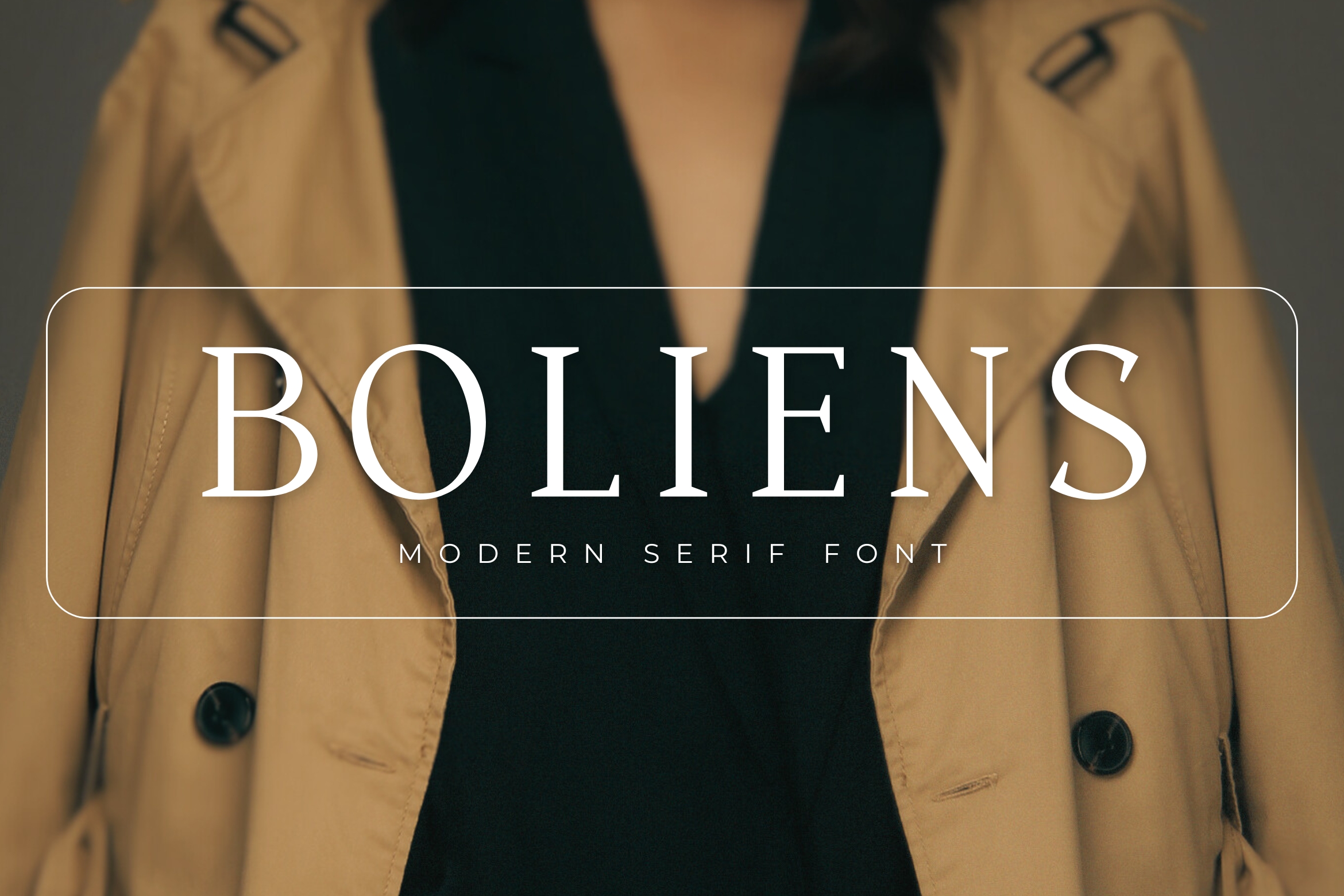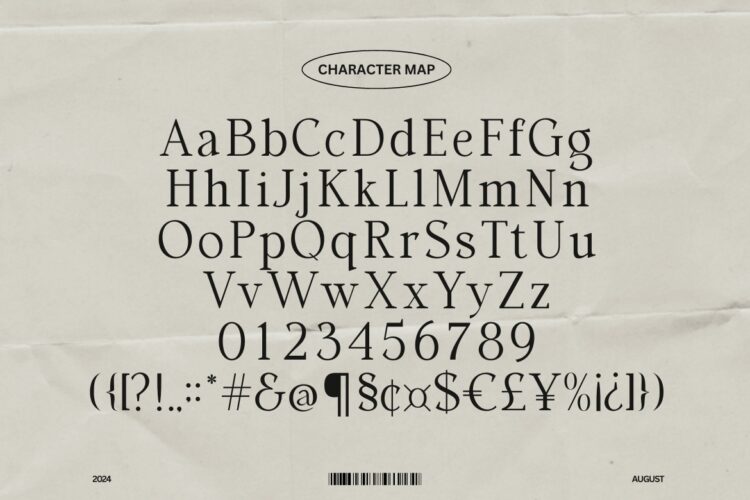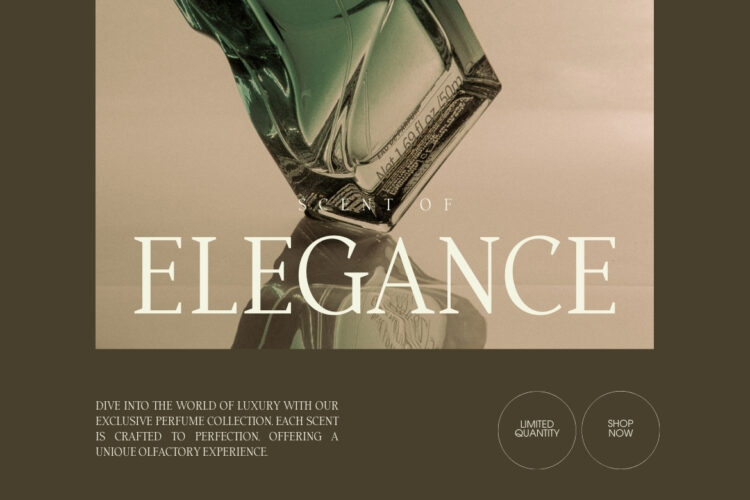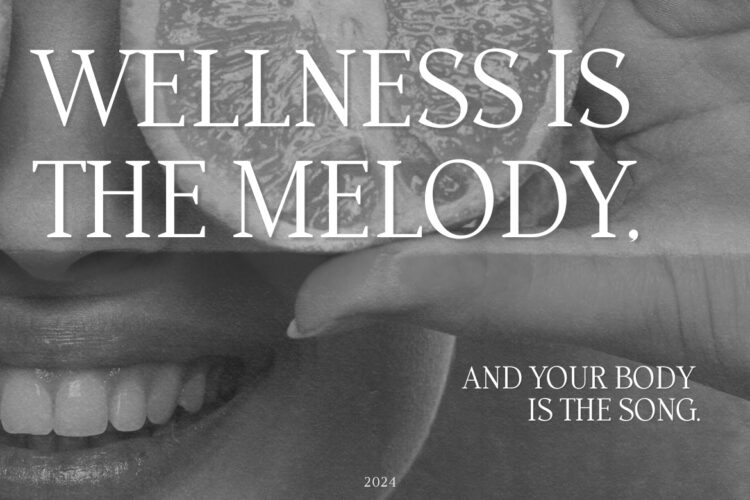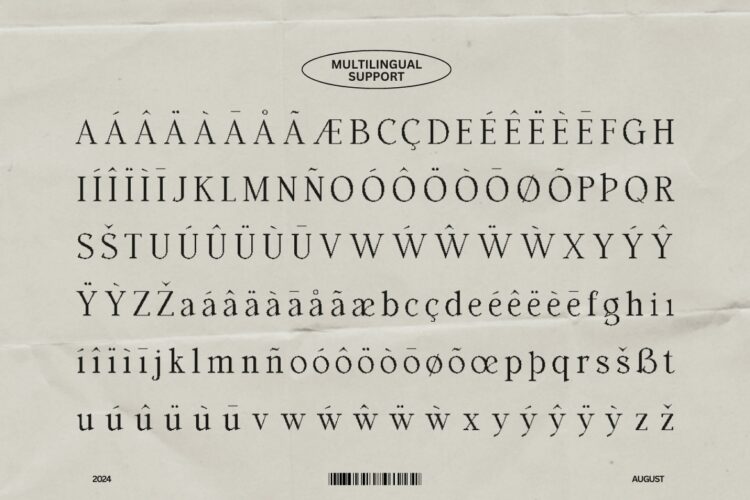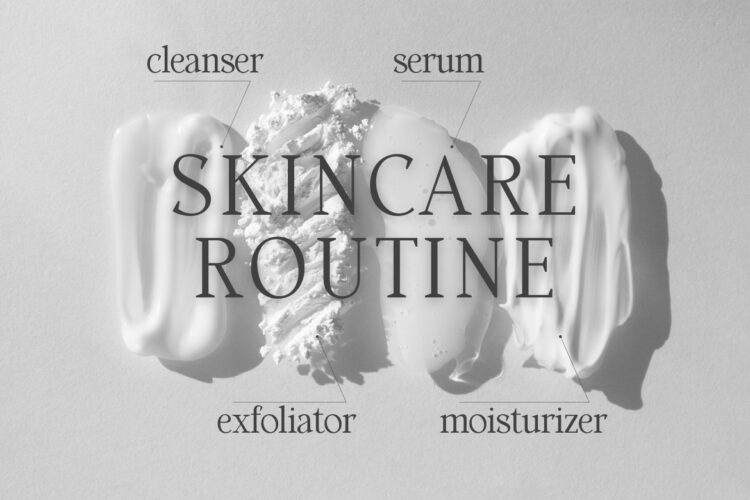
Introducing our new Boliens, modern serif font with elegant style this is perfect for branding, logos, invitation, magazines, product packaging and more.
Boliens Modern Serif